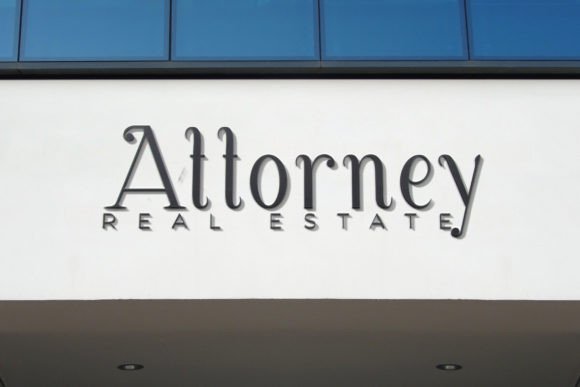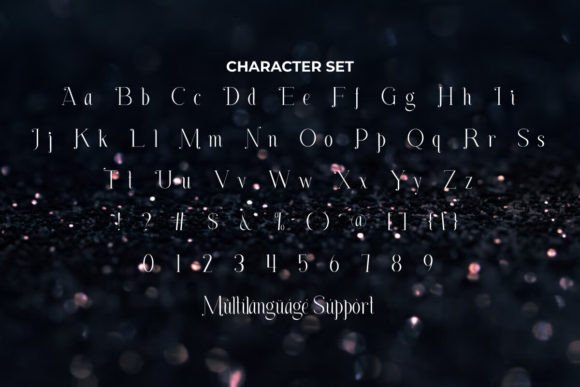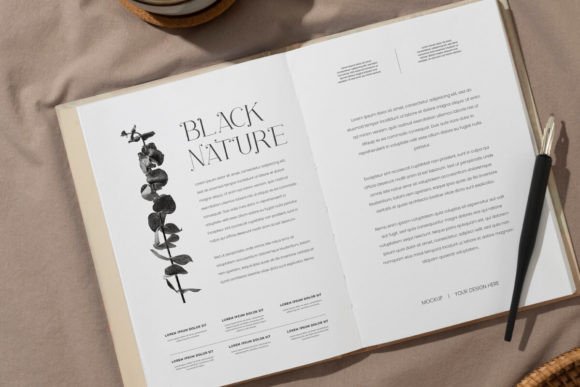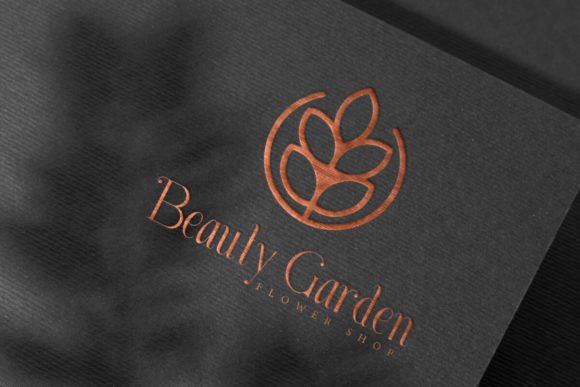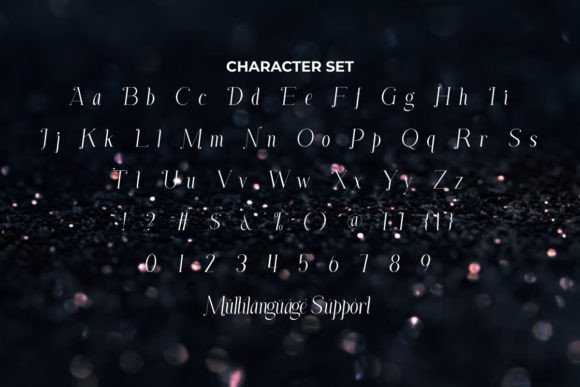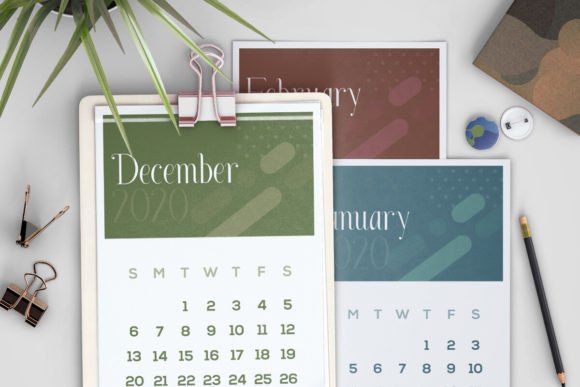
Introducing Decemberain Font: Elevate Your Designs with Elegance
In the world of typography, fonts play a crucial role in conveying the tone and personality of a brand. For designers and crafters looking for a font that exudes elegance and sophistication, Decemberain Font is an excellent choice. This casual serif display font is designed to make a statement, and its versatility makes it suitable for a wide range of industries.
What is Decemberain Font?
Decemberain Font is a beautifully crafted serif display font that boasts a unique blend of elegance and playfulness. Its casual demeanor makes it perfect for designs that require a touch of sophistication without being too formal. The font comes in two stylish variations: Regular and Italic, providing users with flexibility and creative freedom.
Key Features of Decemberain Font
- Elegant Style: Decemberain Font features a stunning elegant style that is sure to elevate your designs.
- Two Font Styles: The font comes in two different styles, Regular and Italic, allowing you to experiment with various design concepts.
- Casual Serif Display Font: Its casual serif design makes it perfect for a wide range of applications, from digital media to print materials.
Industries That Can Benefit from Decemberain Font
Decemberain Font’s versatility makes it an excellent choice for various industries, including:
- Architect: Create stunning architectural visualizations and presentations with a touch of elegance.
- Beauty Product: Elevate your beauty brand with sophisticated packaging and advertising designs.
- Clothing Brand: Add a touch of luxury to your fashion brand’s marketing materials and packaging.
- Florist: Create beautiful floral arrangements and advertisements with a delicate, elegant touch.
- Furniture: Showcase your furniture designs with style and sophistication.
- Handicrafts: Perfect for showcasing handmade crafts and artisanal products.
- Homeware: Elevate your homeware brand’s marketing materials with a touch of elegance.
- Printing: Ideal for printing and publishing companies looking for a sophisticated font.
- Publishing: Use Decemberain Font to create stunning book covers, magazines, and other publications.
- Real Estate: Create professional and elegant marketing materials for your real estate business.
- Writer: Perfect for authors and writers looking for a sophisticated font for their book covers and marketing materials.
Why Choose Decemberain Font?
With so many fonts available, why choose Decemberain Font? Here are a few compelling reasons:
- Unique Style: Decemberain Font offers a unique blend of elegance and playfulness that sets it apart from other fonts.
- Versatility: Its versatility makes it suitable for a wide range of industries and applications.
- Ease of Use: The font is easy to use and comes in two stylish variations, making it perfect for designers of all levels.
In conclusion, Decemberain Font is an excellent choice for designers and crafters looking for a font that exudes elegance and sophistication. Its casual serif display design, elegant style, and versatility make it perfect for a wide range of industries and applications. Whether you’re looking to create stunning marketing materials, packaging, or publications, Decemberain Font is sure to elevate your designs and help you achieve your creative goals.